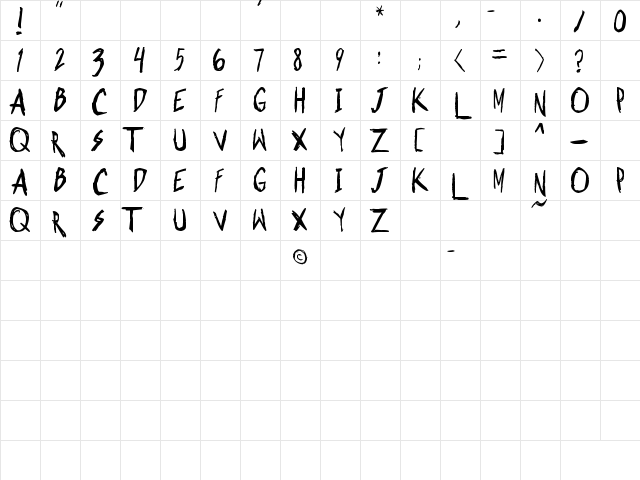
Shonen Punk! Custom Bold Bold
Design Context for Shonen Punk! Custom Bold Typeface
Shonen Punk! Custom Bold is a composed and adaptable typeface that performs quietly and consistently across a wide range of design contexts. Its bold stroke weight gives it real presence on the page.